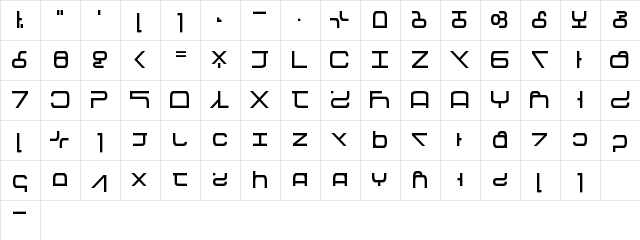
Tirolese Regular Font Preview
Tirolese Regular
Tirolese Regular Font Details
| Designer | Neale Davidson |
Design Context for Tirolese Typeface
Tirolese takes a measured approach to typography — its balanced proportions and neutral character make it a reliable workhorse for both digital and print work.